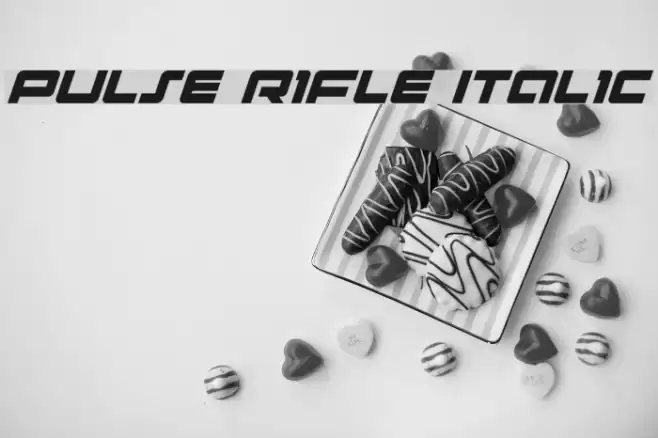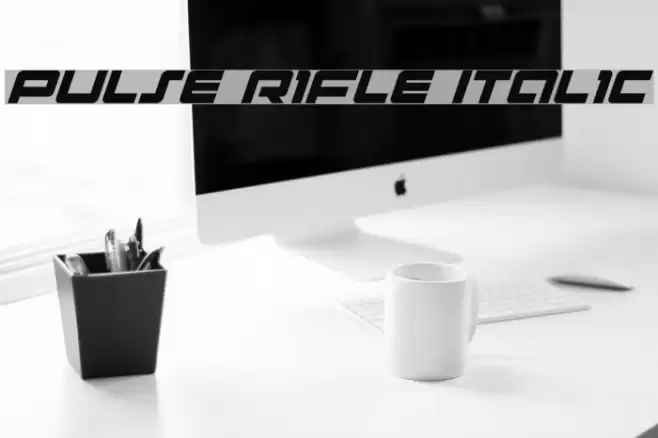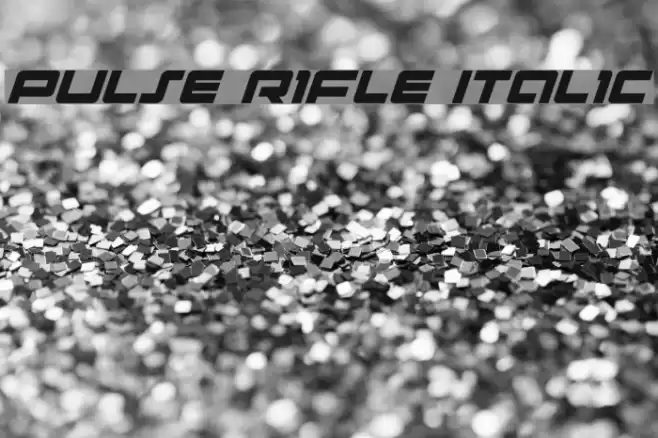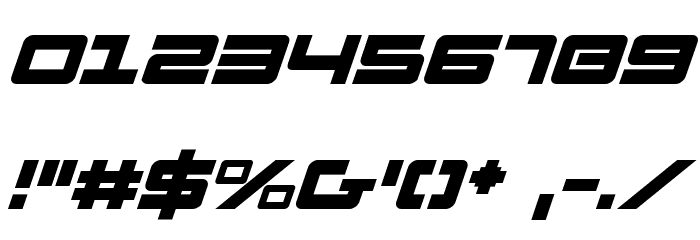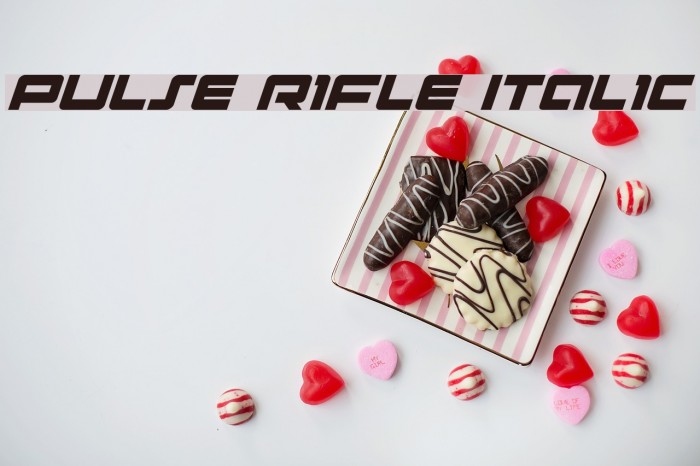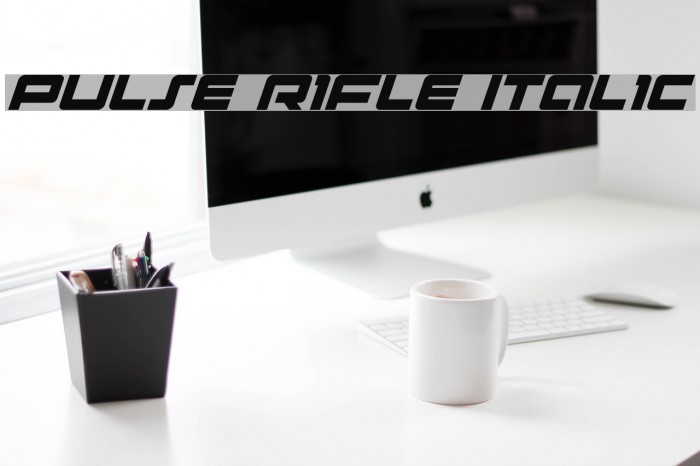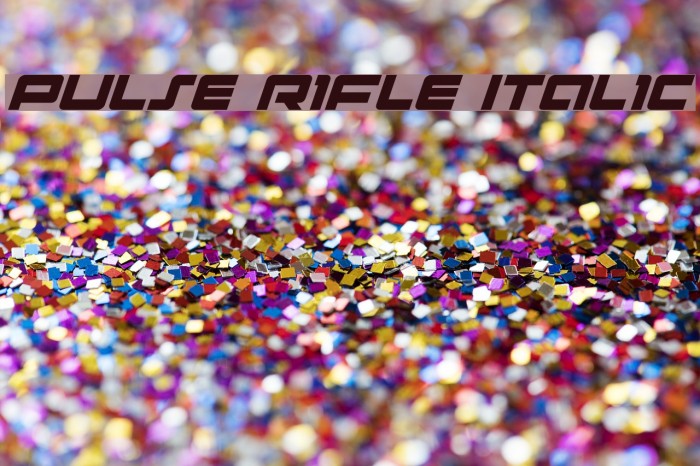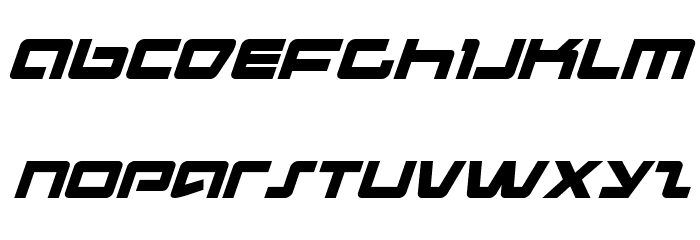
Pulse Rifle Italic Font
Pulse Rifle Italic Description
This font features a futuristic and dynamic design with a strong emphasis on angular lines and geometric shapes. The characters are italicized, giving a sense of motion and speed. The uppercase and lowercase letters maintain a consistent style, with sharp edges and a slightly condensed form. The numerals and special characters follow the same design principles, ensuring uniformity across all glyphs. The font's bold weight and medium contrast make it highly legible, while its unique style adds a modern and edgy feel.
A futuristic, italicized font with angular lines and geometric shapes from Sci-fi fonts.
- Proposed Projects: Ideal for sci-fi themed projects, video game interfaces, tech branding, and modern posters.